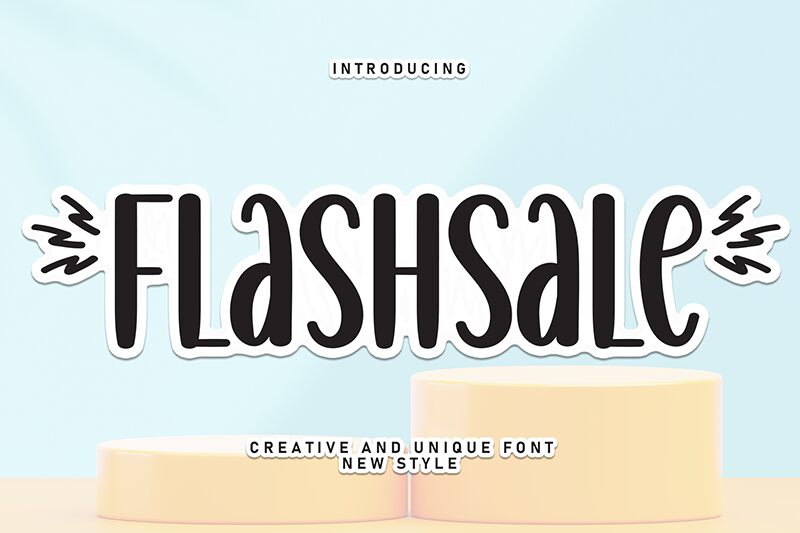
Flashsale
Flashsale font by Scratchones is an expressive brush typeface with fluid transitions and a condensed style. It carries a retro-inspired vibe paired with a modern twist, capturing attention with its artistic flair. This font has elements of luxury and dynamism, allowing for innovative creative projects.
Flashsale is great for headers, titles, advertising banners, branding designs, packaging projects, magazines covers or pages, social media posts, T-shirt designs clothes labels and tags or even canvas posters. Use it in website designs including landing pages or opt-in forms as well as badges logos and other illustrations.